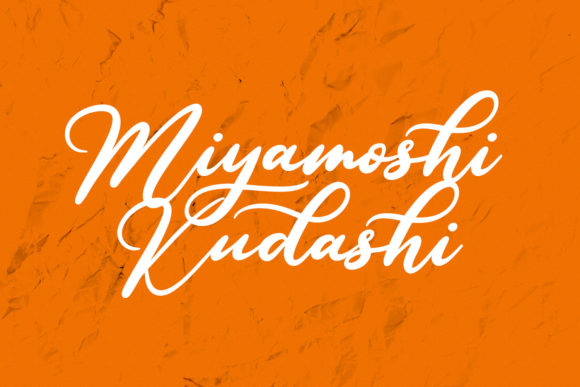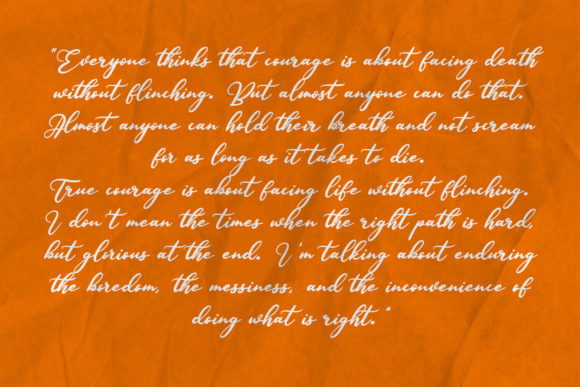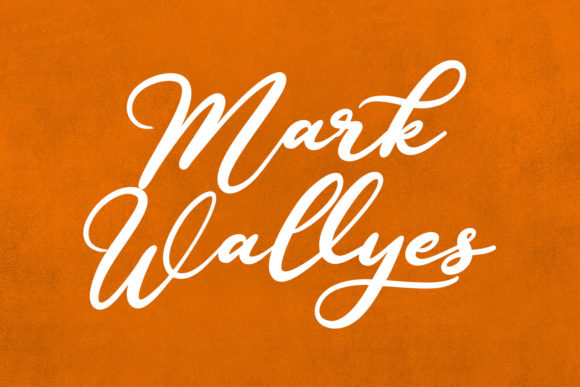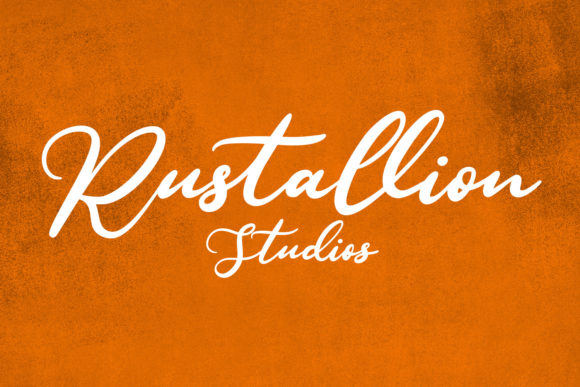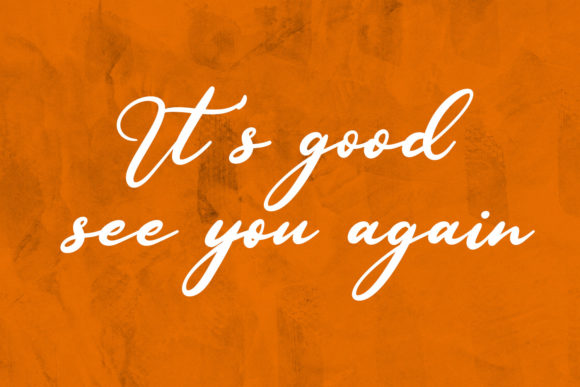
About Chasing Sun Font
Chasing Sun is a modern romantic script font with high contrast stroke, fun characters, and a unique style. Use it for invitations, birthday cards, personal branding, business cards, or other projects that need a personal note.